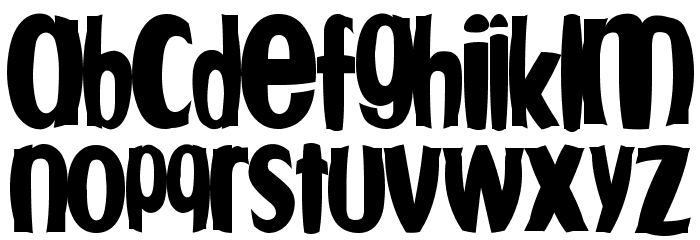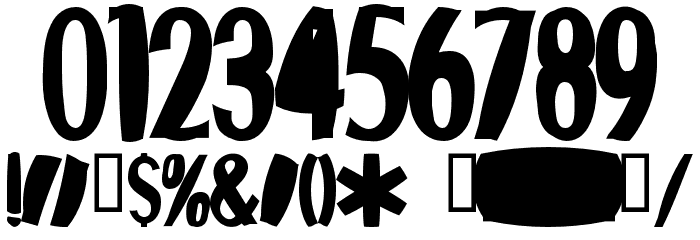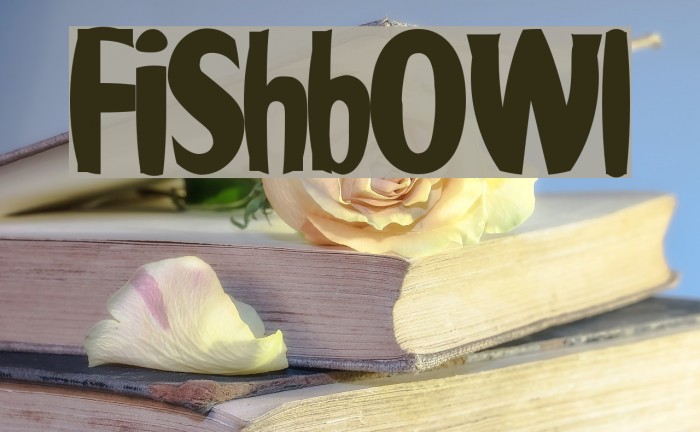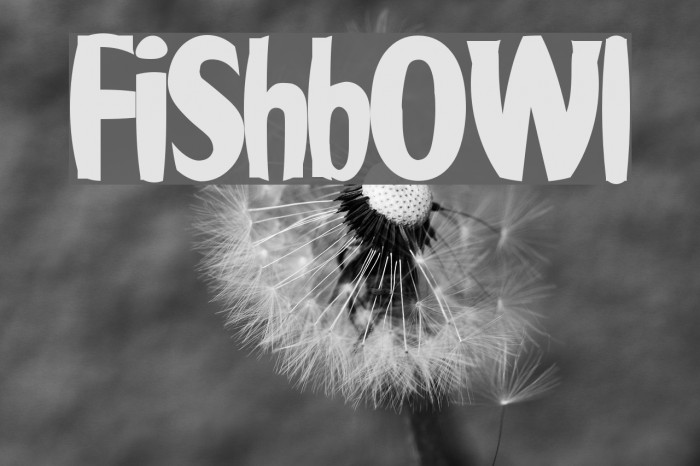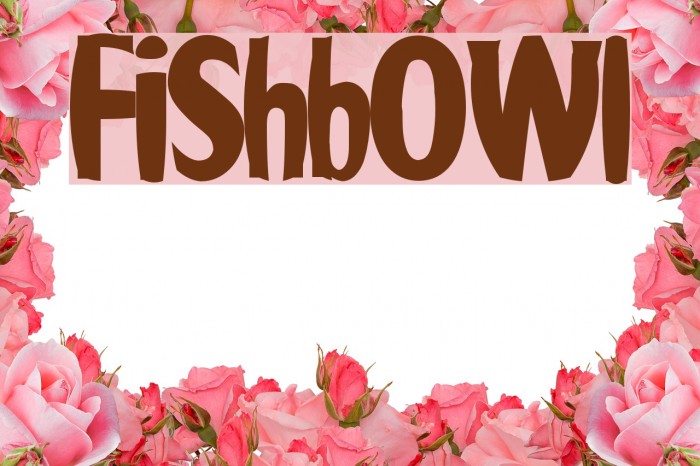
Fishbowl Font
This font features a bold and playful style with exaggerated curves and a slightly uneven baseline, giving it a whimsical and lively appearance. The characters are thick and rounded, creating a sense of fun and energy. The uppercase and lowercase letters maintain a consistent style, with the lowercase letters being slightly more compact. The numbers and special characters follow the same bold and playful design, making them stand out. This font is ideal for projects that require a touch of creativity and personality, such as children's books, playful branding, or eye-catching posters.
A bold, playful font with exaggerated curves and a whimsical style.
- Font: Fishbowl
- Proposed Projects: Children's books, playful branding, eye-catching posters, creative invitations.
- Overall Style: Playful, Whimsical